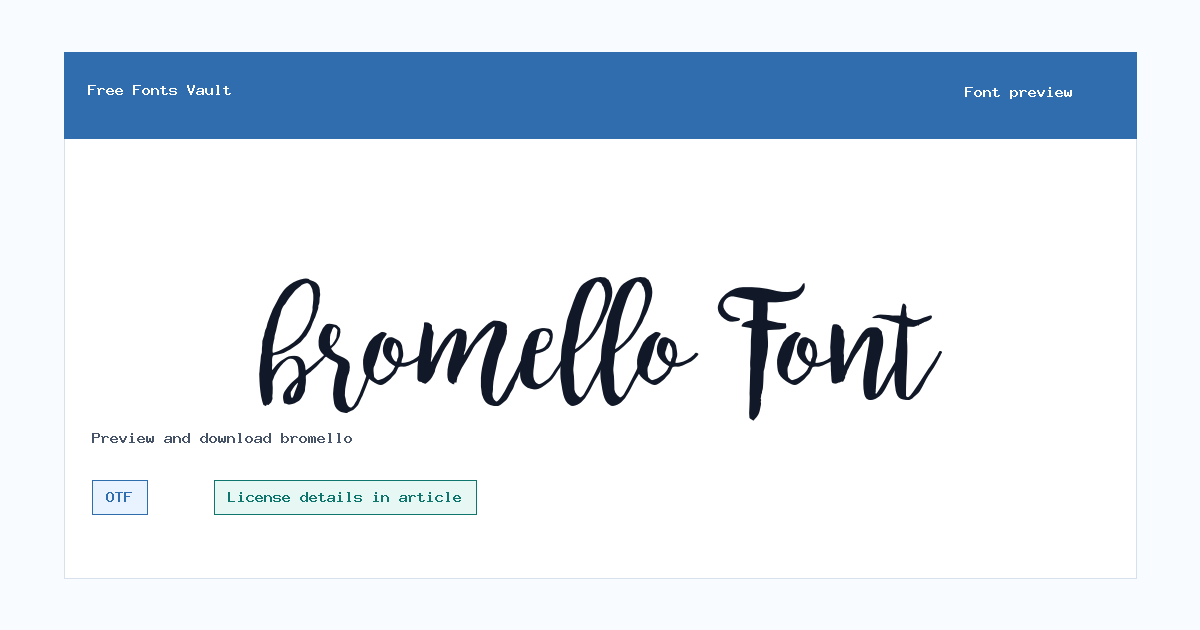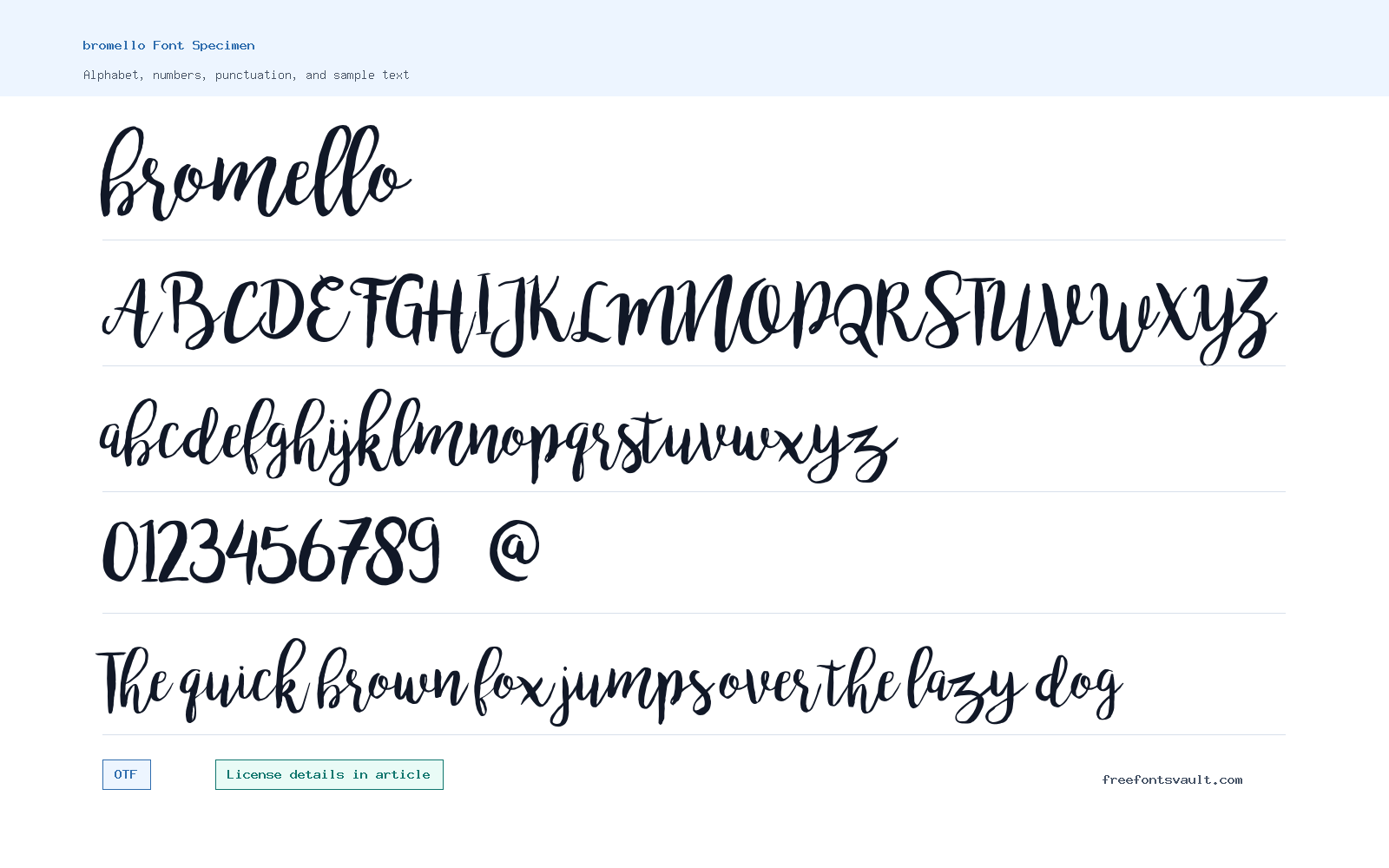
bromello
- Designer Alit Suarnegara
- Foundry alit_design
bromello font.
Bromello is a handwritten script font with a loose, flowing feel. It works best when you need a casual signature look for short text, especially names, headings, quotes, and decorative branding drafts.
About Bromello
Bromello has the movement of hand lettering: connected strokes, soft curves, and a relaxed baseline that gives words a personal tone. The style is script and handwriting-based rather than a plain text face, so it is most effective when used in short, expressive settings instead of long paragraphs.
For best results, keep Bromello on one visual job at a time: a name, short phrase, invitation heading, logo draft, or decorative pull quote. If a word looks crowded, try a larger size or simpler surrounding typography before changing fonts. The script style is the attraction, so it usually needs open space around it.
Before using Bromello in a finished design, check whether the letters connect cleanly at the exact size you need. If the word has many tall letters or long descenders, add more white space around the text and avoid placing it over a busy image.
- Handwritten script style with connected letterforms
- Signature-style names, quotes, invitations, and greeting designs
- Logo drafts, social graphics, packaging mockups, and short decorative headings
Bromello is credited to Alit Design, with Alit Suarnegara named as the author.
Keep Bromello large enough for the connecting strokes to stay clear. It pairs best with a simple sans serif or clean serif for supporting text, because using another decorative script beside it can make the layout harder to read.
What kind of font is Bromello?
Bromello is a handwritten script font. It is better for short decorative text than for body copy.
Who designed Bromello?
The font is credited to Alit Design. The local author metadata names Alit Suarnegara.